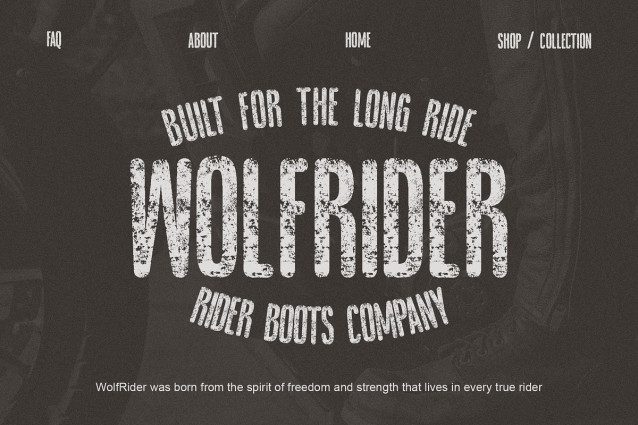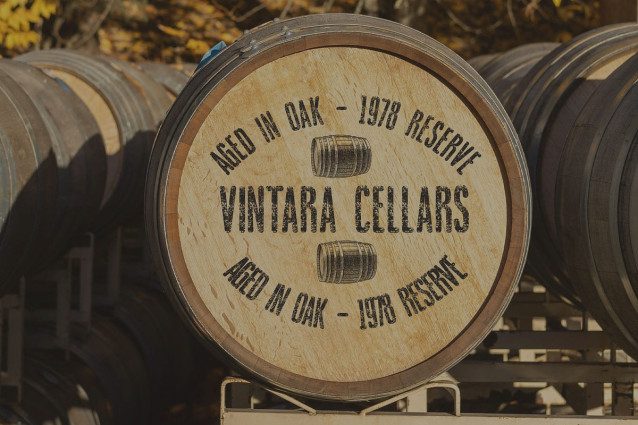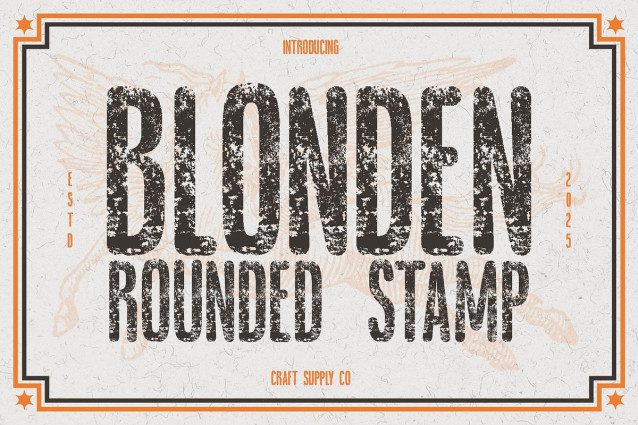
Blonden Rounded Stamp Font
Blonden Rounded Stamp Font – Bold Condensed Sans Serif with Vintage Charm Modern Sans Serif with Relaxed Rounded Form This is a condensed sans serif font defined by its bold weight and smooth, rounded contours. Its elegant yet approachable shape brings a sense of calm sophistication and warmth, making it ideal for designs that seek a balance between strength and softness. The refined geometry gives it a professional presence while maintaining a friendly, modern appeal.
Stamp Texture for Character and Depth What sets apart is its textured stamp effect, adding a tactile, handcrafted charm to its sleek form. This subtle imperfection creates a vintage and artistic atmosphere, enhancing the natural character of each letter. The texture introduces dimension and authenticity, making the typeface stand out in both digital and print formats.
Versatile for Elegant and Expressive Design Designed for versatility, performs beautifully in branding, packaging, posters, and editorial layouts. Its condensed form allows it to command attention in headlines and logos without overpowering the design. The mix of modern minimalism and vintage texture ensures it fits effortlessly into both contemporary and nostalgic aesthetics.
Where Strength Meets Subtle Refinement This font perfectly bridges modern clarity and handcrafted expression. Its bold, rounded structure paired with a worn stamp texture delivers a stylish, approachable, and authentic look, ideal for creatives who want to express confidence, artistry, and timeless design sensibility in their projects.